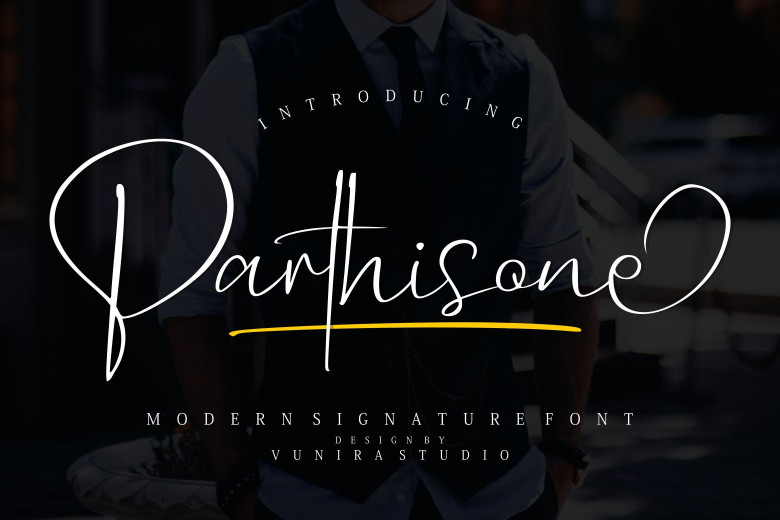
Parthisone Font
Parthisone is a modern script font with a handwritten style. It will look so beautiful on invitations, greeting cards, branding materials, business cards, quotes, posters, and more!
Parthisone Handwritten Font